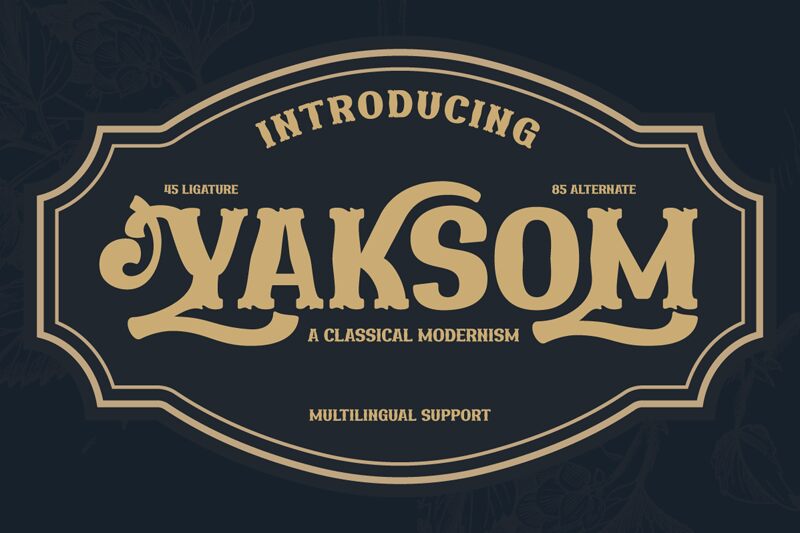
Yaksom font family designed by twinletter is a free font in two styles ideal for your personal use in a range of valuable projects. Inspired by the font trends of the 70s and 80s, this font is a fresh take on beautifully rounded letters. The special design and decorative touch of the font gives it an adventurers feel and a visual appeal that is out of the ordinary.
Typical use tone, keywords, and style of use cases include logo design, poster or flyer design, personal branding, and packaging design. The font also fits for book cover title, magazine cover design, website, digital platform, or social media post.